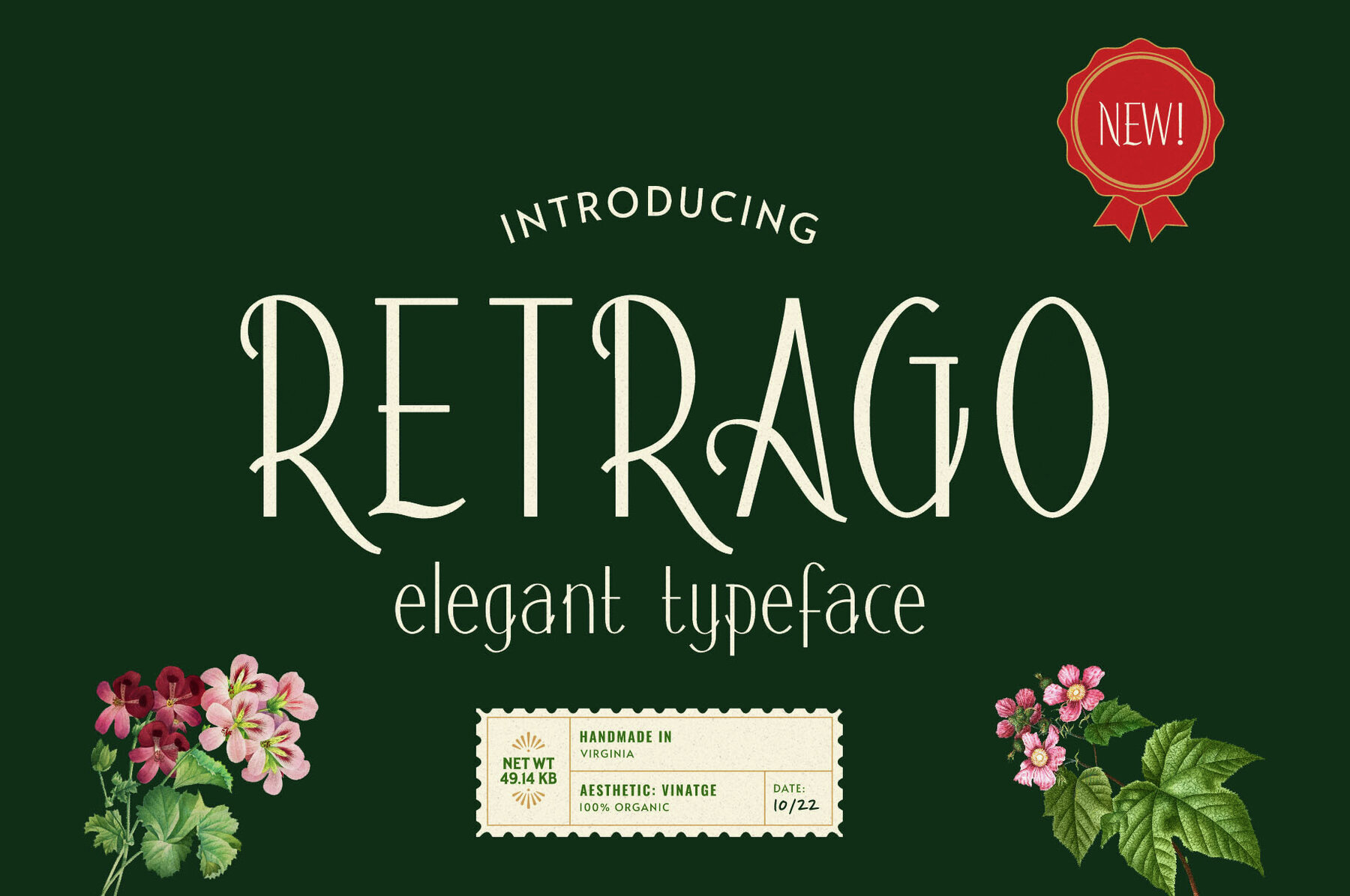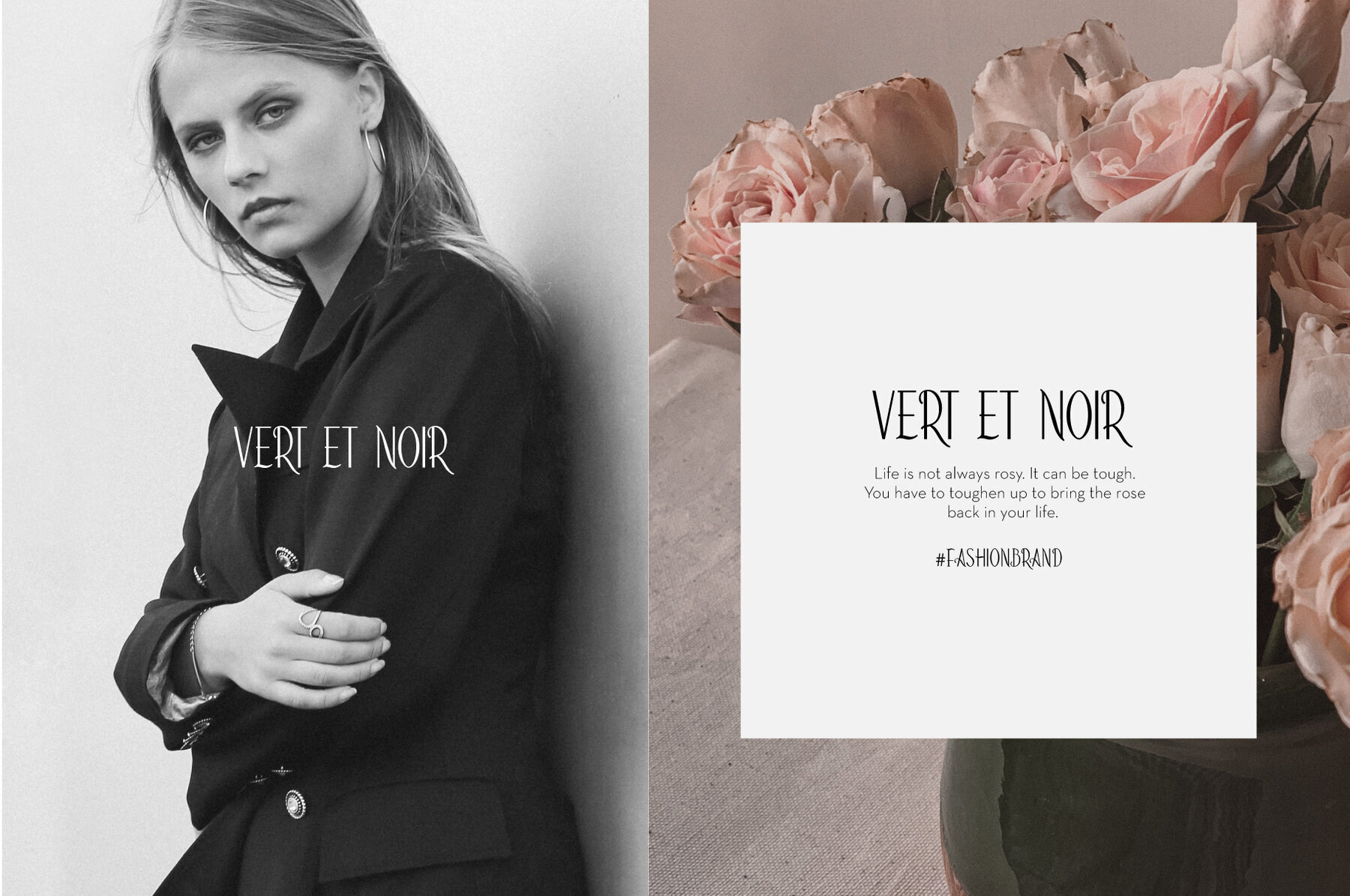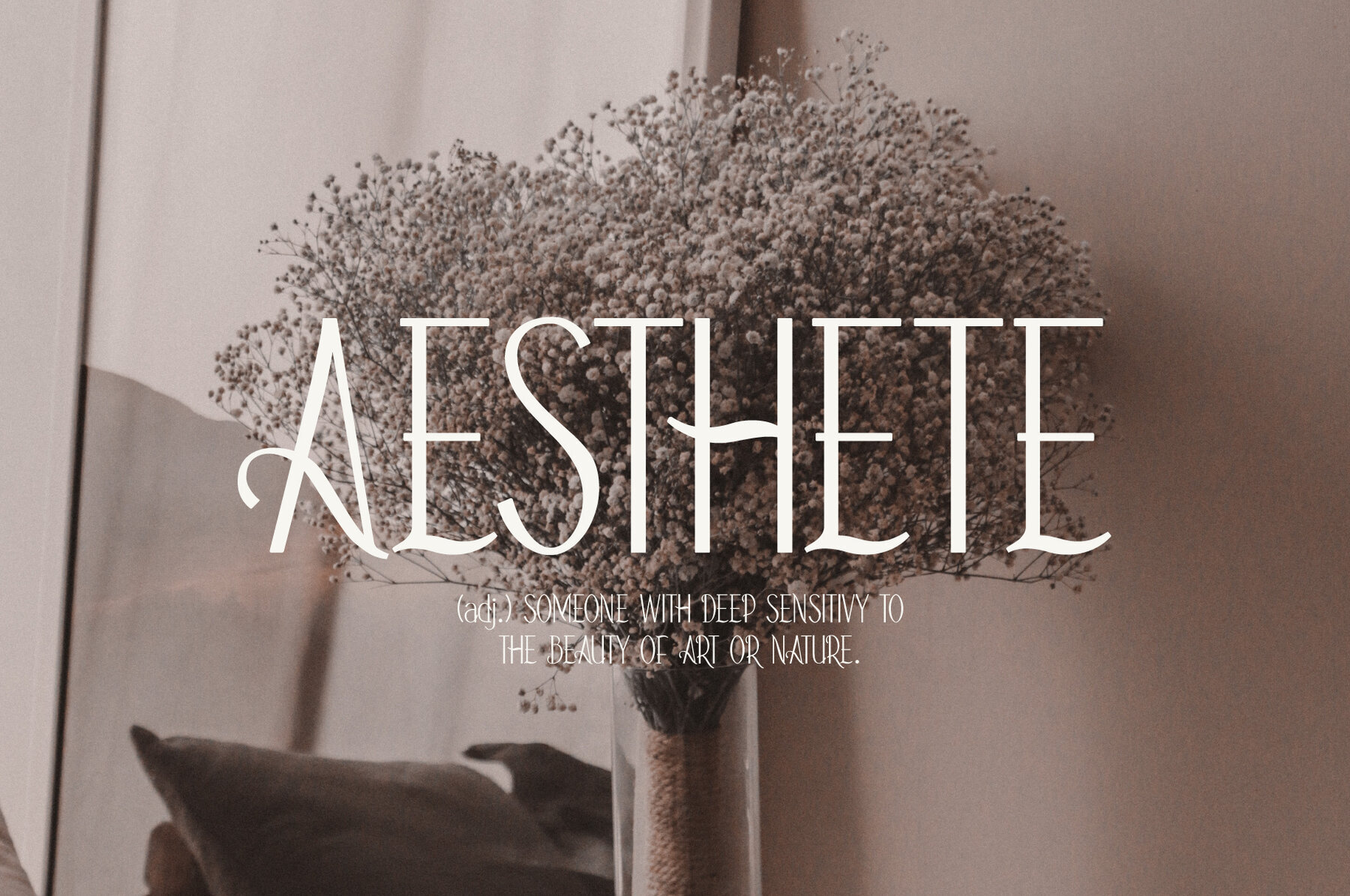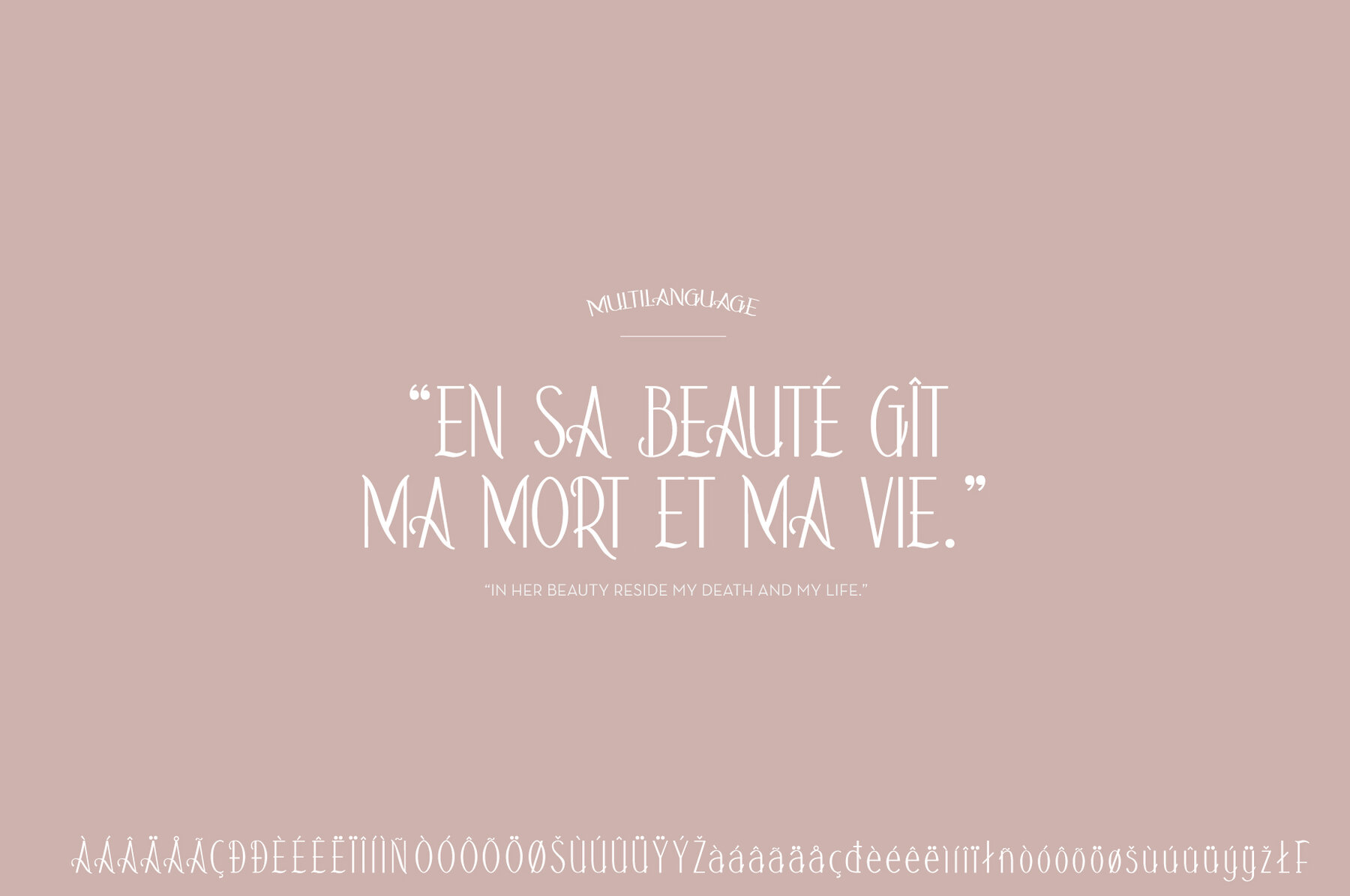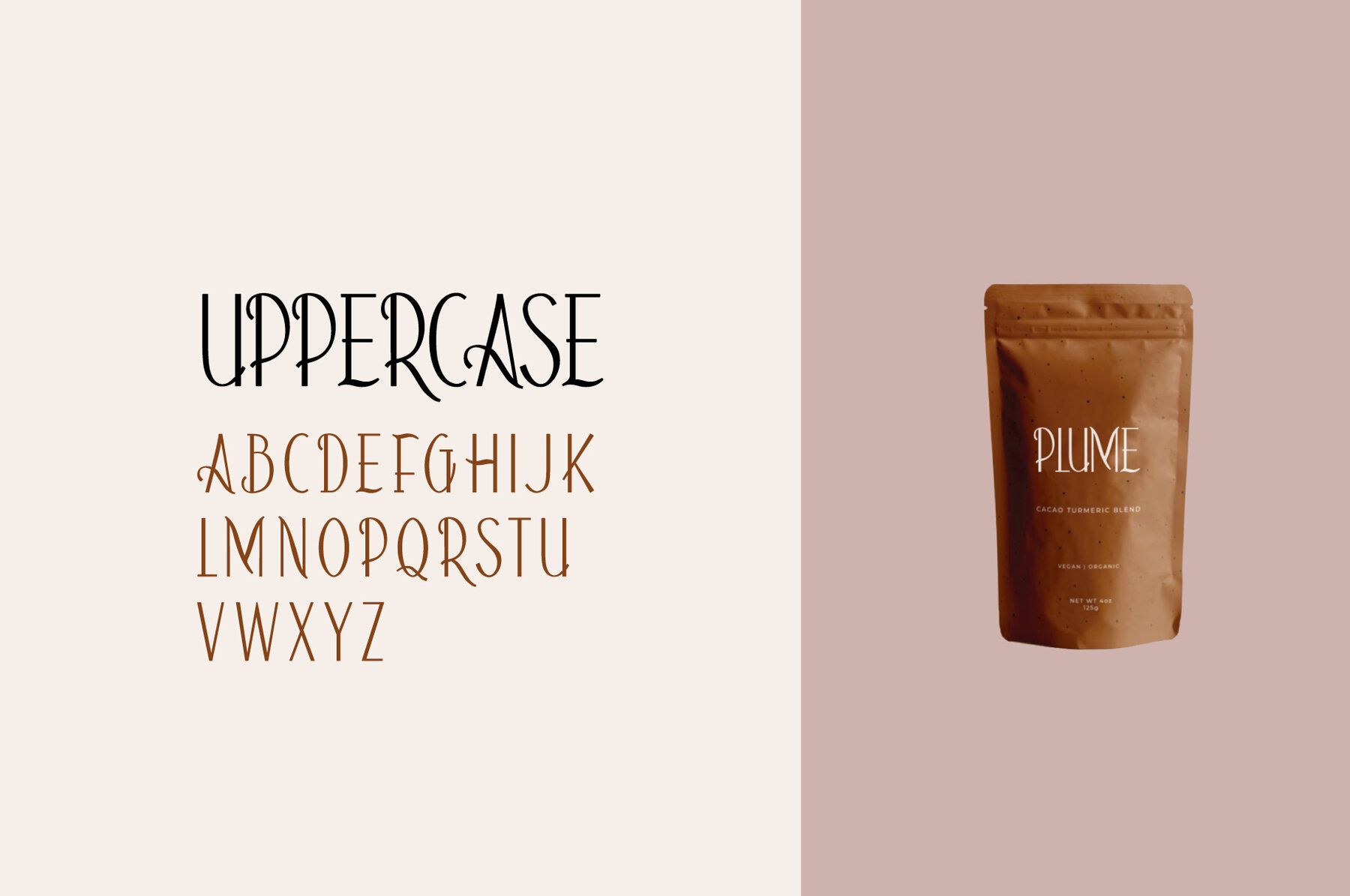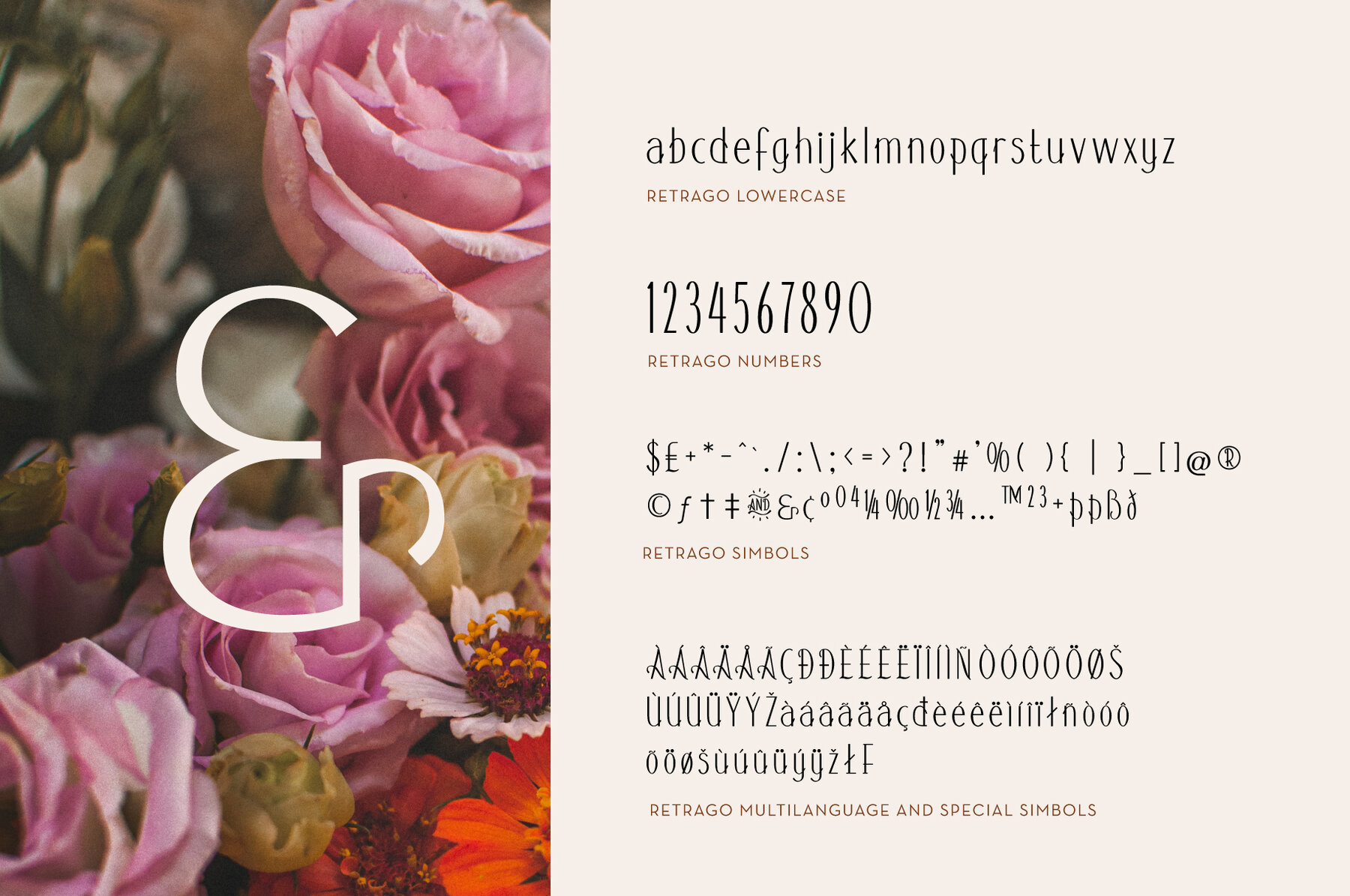
Retrago is a serif font that epitomizes class and modernity. Crafted with precision and elegance, this typeface elevates the aesthetic of any project, making it an ideal choice for those seeking sophistication and style. Retrago seamlessly blends the timeless allure of serif fonts with contemporary design elements, resulting in a versatile and distinctive typeface. Retrago's character set is meticulously designed, featuring sleek lines and refined curves that exude luxury and refinement. Its balanced proportions and thoughtful design nuances make it particularly well-suited for high-end design projects such as wedding invitations, adding a touch of elegance and exclusivity. This font is perfect for creating memorable and impactful invitations that stand out.Retrago: Elegant Serif Font With Modern Sophistication